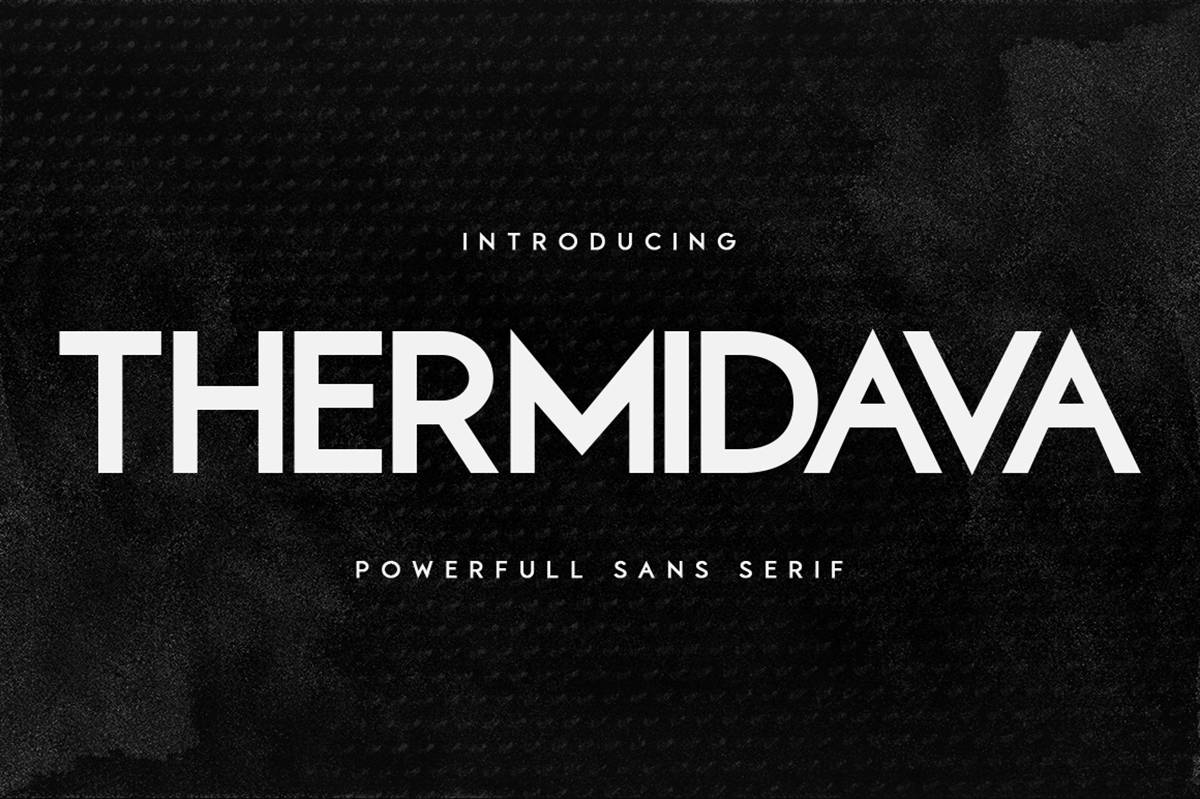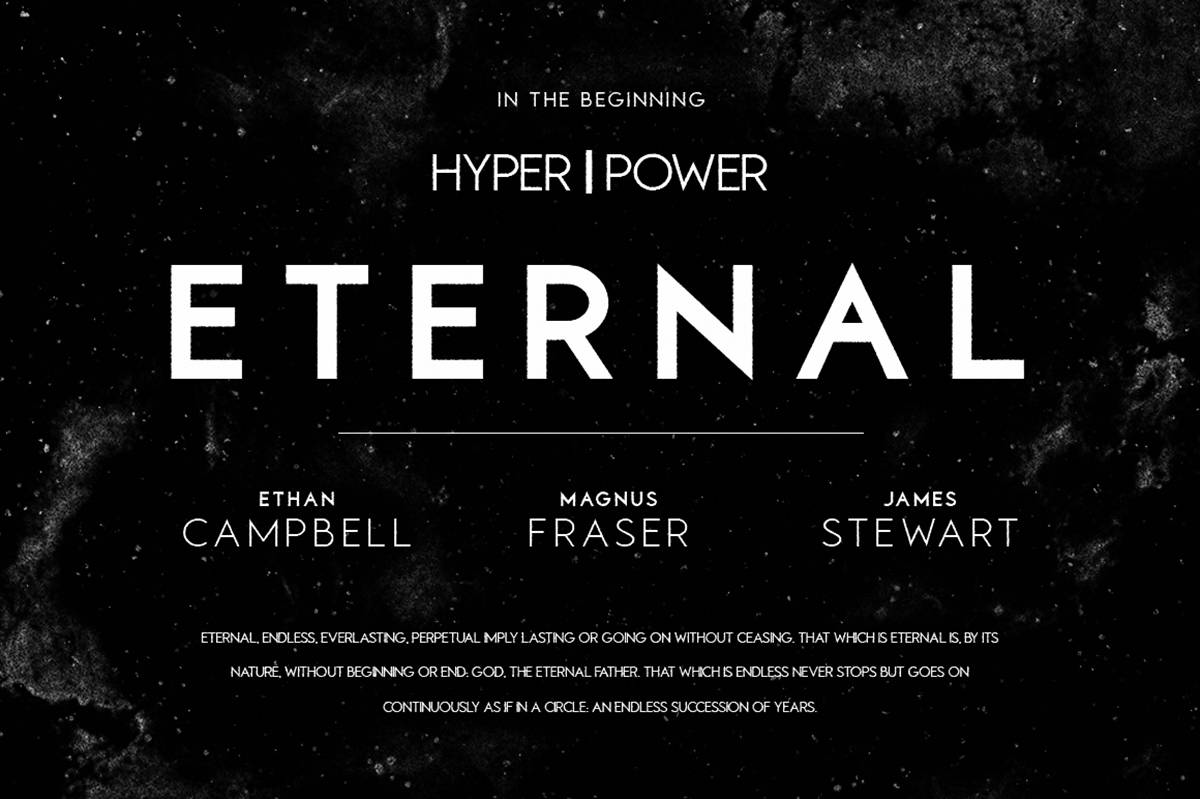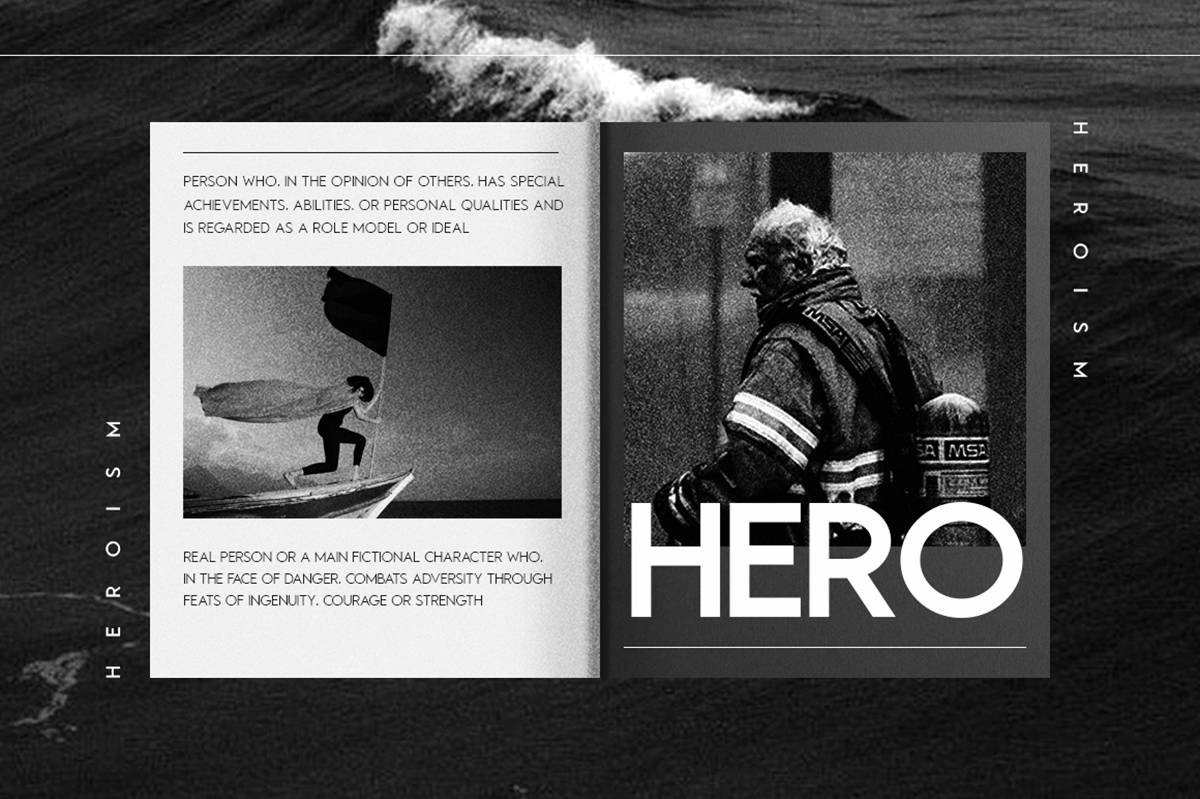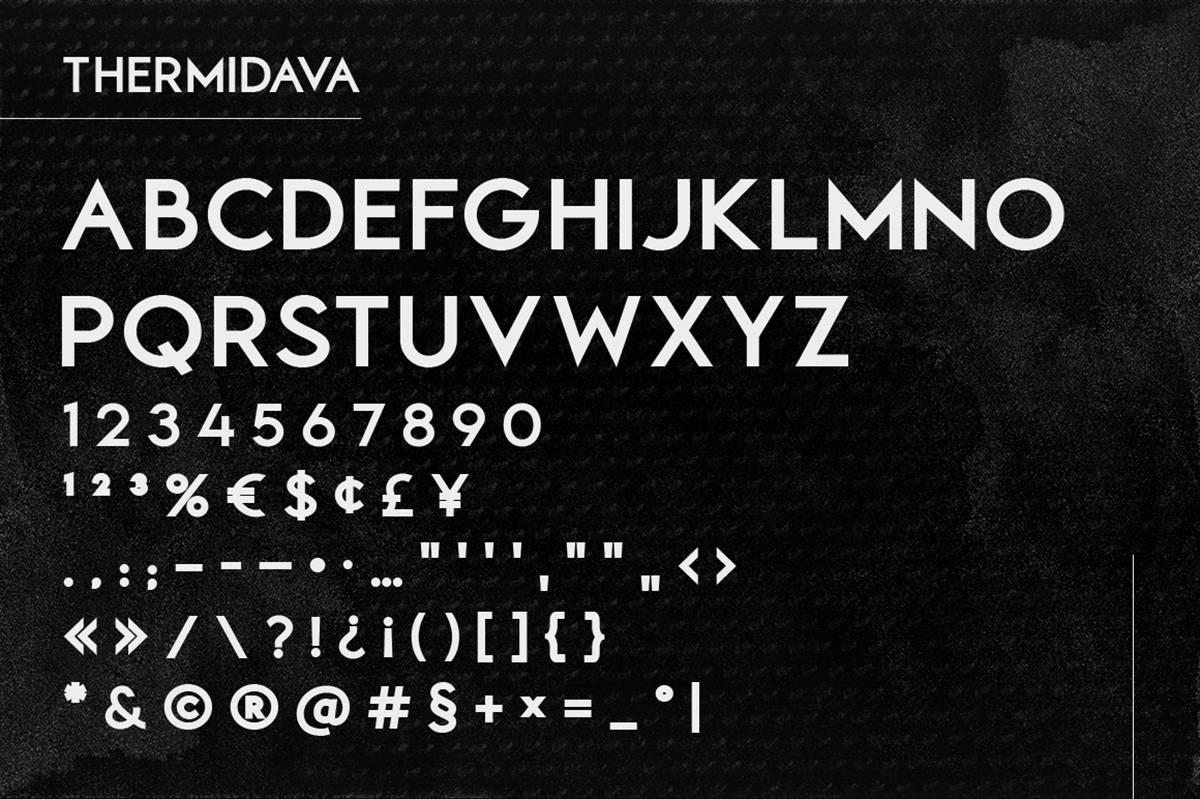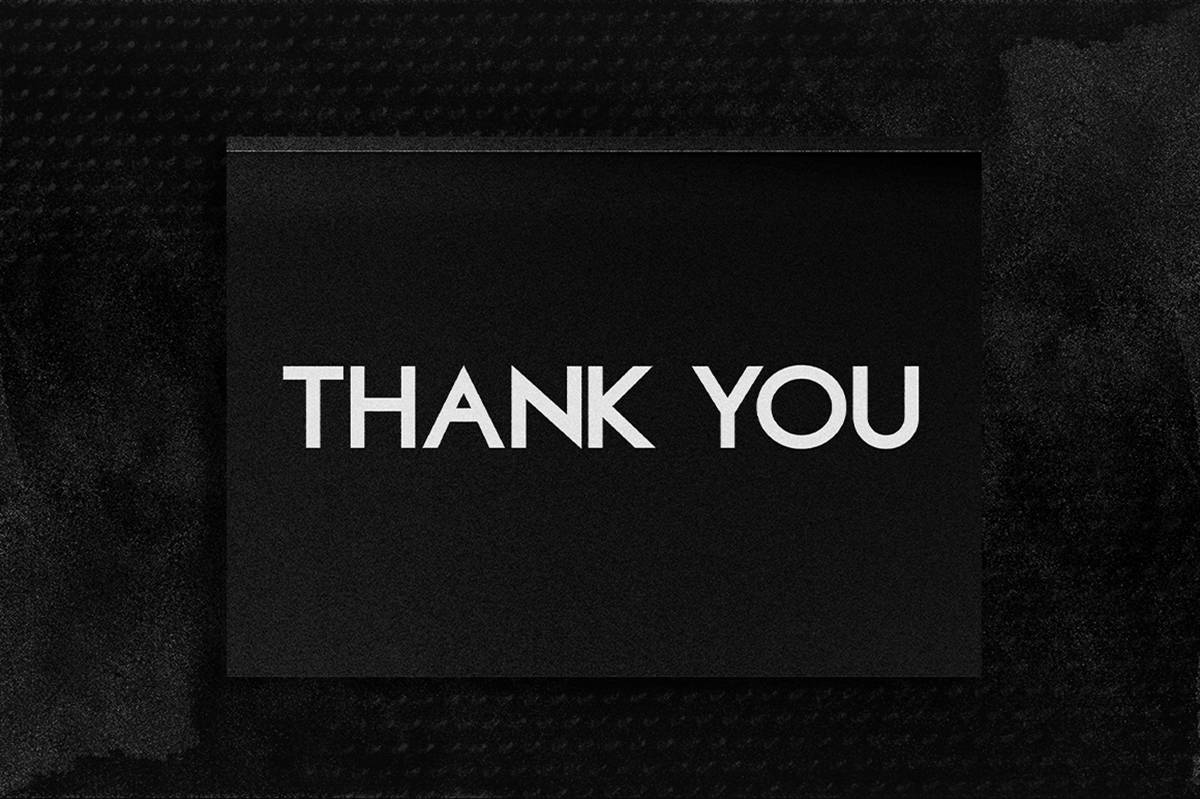
Thermindava is a clean, modern sans serif font characterized by its geometric shapes and balanced proportions. With a regular weight and normal width, it features a medium x-height and subtle stroke contrast, offering clarity and legibility. Its sharp, angular details and distinctive letterforms give it a contemporary and professional vibe, making it ideal for branding, editorial use, and digital media where a fresh, stylish look is desired.
Thermindava Font
About Thermindava Font
| Font family | Thermindava Font |
| Release date | 2021-05-20 |
| Designer | Yusa Putra |